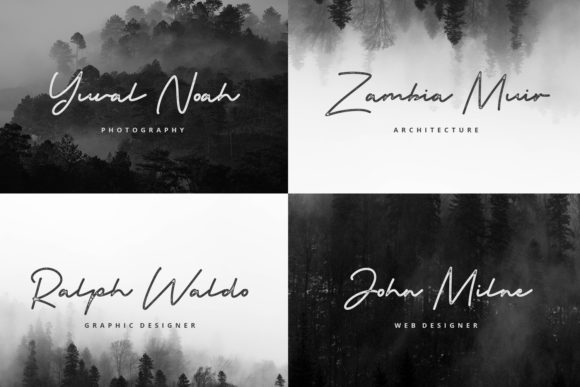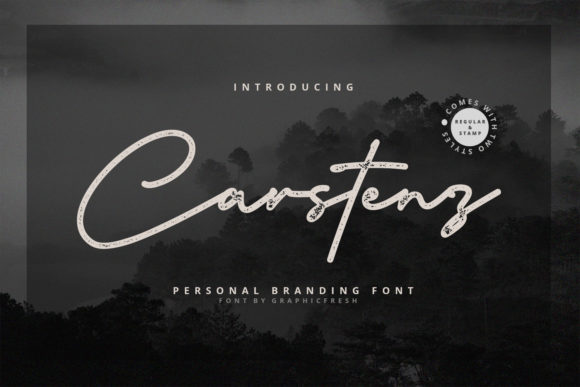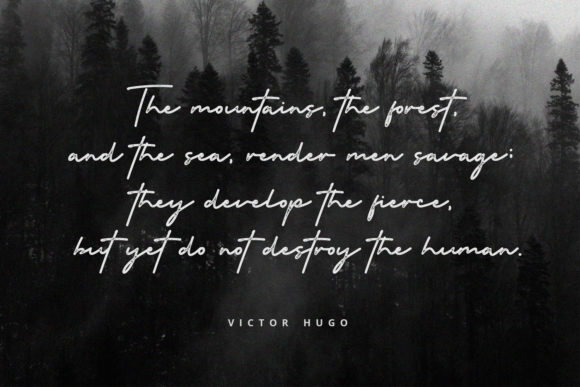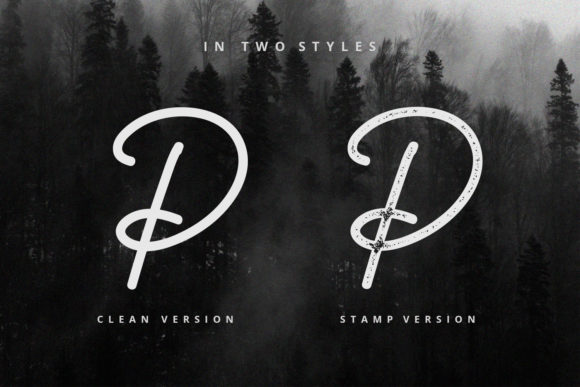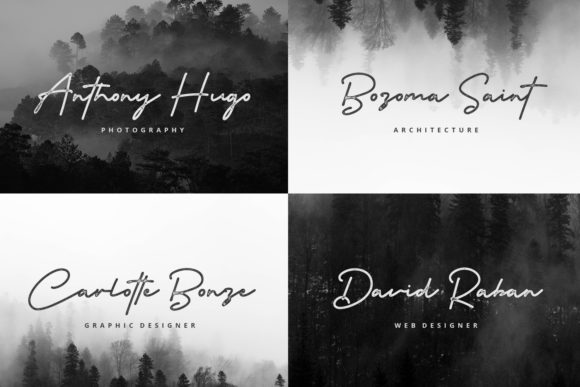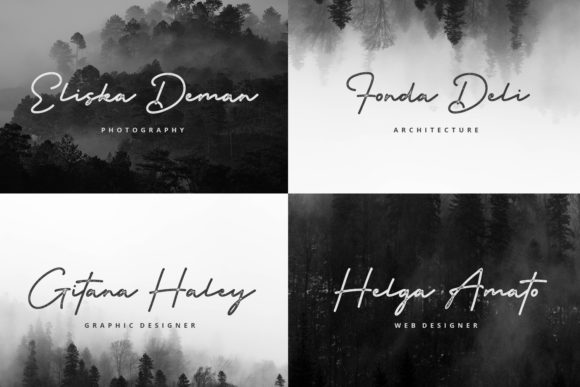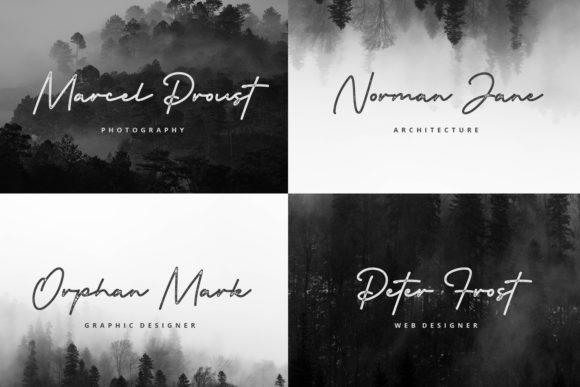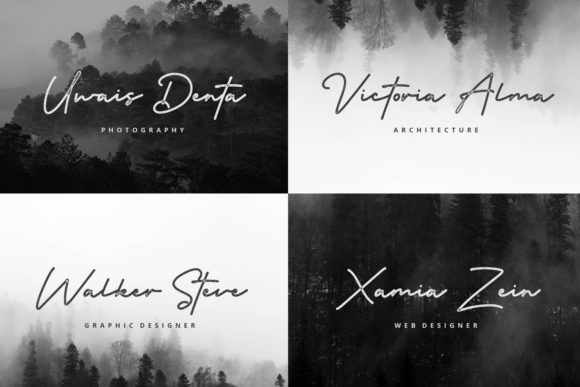
Carstenz Font
About Carstenz Font
Make editorial or professional pieces come to life with this modern script. It comes in regular and stamp styles, that require no special software at all.
Use Carstenz on business cards, homepages, portfolios, invitations, and branding endeavors, and every other design which needs a vintage style.